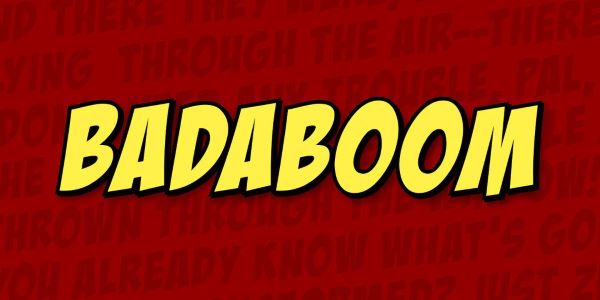
Badaboom Font
Badaboom font
Badaboom Font is a bold comic-style display typeface known for its explosive shapes and dynamic energy. Its powerful lettering makes it perfect for comic books, posters, headlines, logos, and designs that need an action-packed, eye-catching impact.
➤ Font Name: Badaboom
➤ Designer: Blambot
➤ Style: Comic